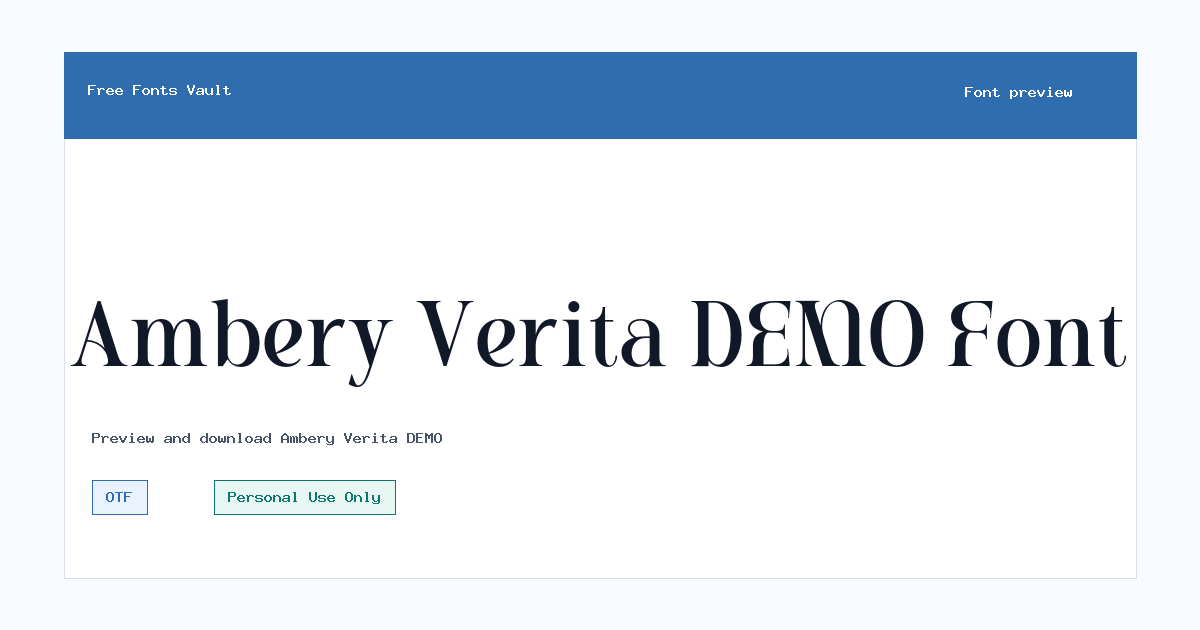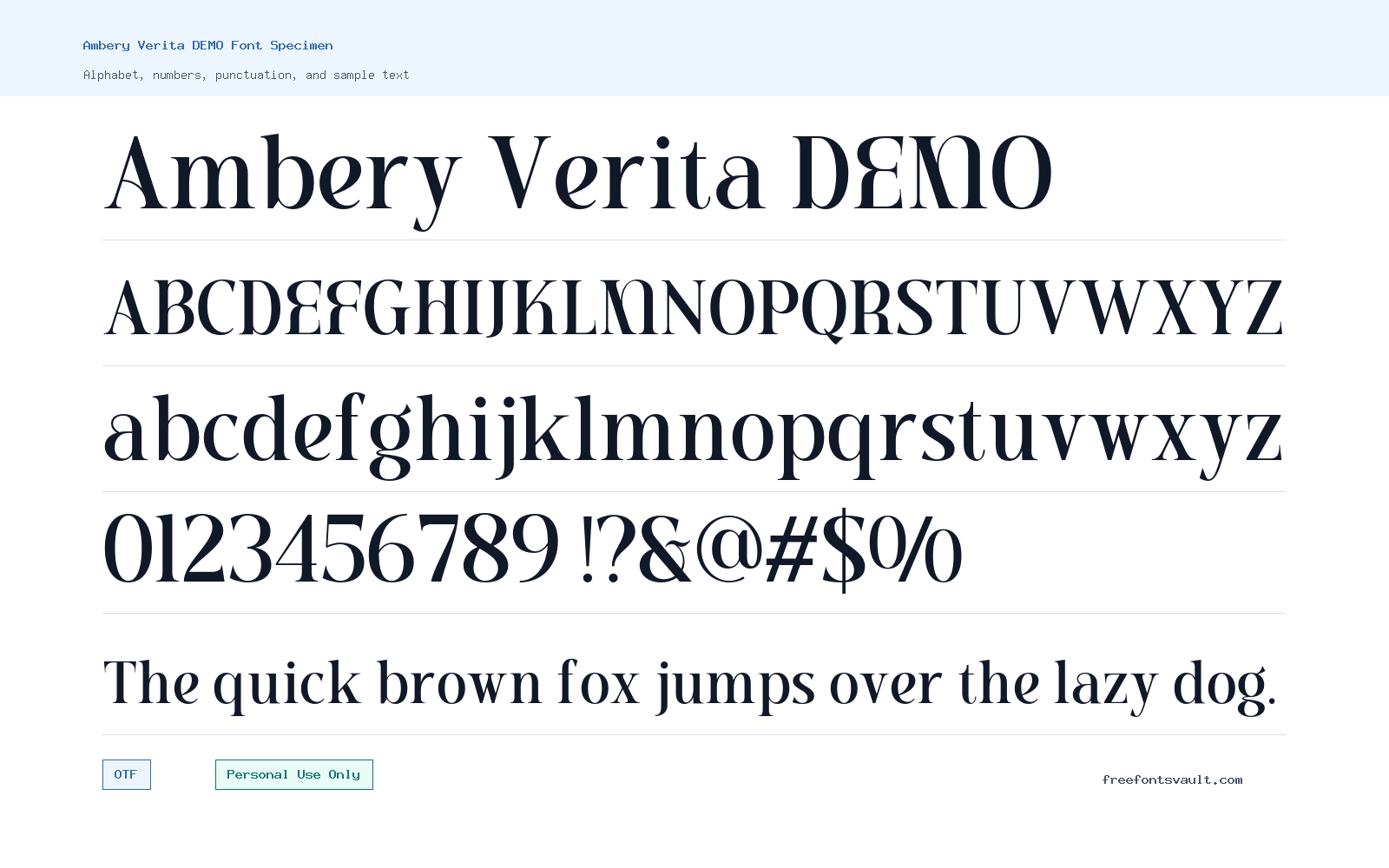
Ambery Verita DEMO
- Designer Bakhrudin Ja'far
Ambery Verita DEMO font.
Ambery Verita DEMO is a serif font with a polished display feel, made for visitors who want to test a refined letter style before using it in personal design work.
About Ambery Verita DEMO
Ambery Verita DEMO works best when the text has room to breathe. Its serif structure gives headlines, names, titles, and short phrases a more finished look than a plain text face. Because the download is a demo regular style in OTF format, it is a good choice for quick personal mockups, poster drafts, invitations, branding experiments, social graphics, or any layout where you want to see how a graceful serif voice changes the mood of the design. Use the preview tool with your own words before downloading, especially if your project depends on specific initials, punctuation, or mixed uppercase and lowercase text.
For practical use, keep Ambery Verita DEMO focused on display settings rather than dense reading. Try it at larger sizes first, then check whether the spacing and fine details still hold up at smaller sizes. It can pair well with a quiet sans serif for body copy, captions, menus, or supporting details, because that lets the serif carry the visual personality without making the full layout feel heavy. If you are building a design system, test numbers, accents, and punctuation early. Demo fonts can have limited character coverage, so a short preview check can save time before you commit to a layout.
- Serif display style suited to titles, names, and short decorative text
- Personal posters, invitations, mood boards, and social media graphics
- Logo drafts, headline tests, packaging concepts, and editorial-style titles
The designer is listed as Bakhrudin Ja'far, with Room Space Creative Lab linked as the designer website.
What kind of projects suit this font?
It is best for short display text such as titles, names, invitations, posters, social graphics, and concept branding where a serif style can stand out.
Can I use it for long paragraphs?
It is better to test carefully before using it for long text. A display-focused serif usually works strongest at larger sizes and in shorter lines.
Who designed Ambery Verita DEMO?
The designer is listed as Bakhrudin Ja'far. The linked designer website is Room Space Creative Lab.